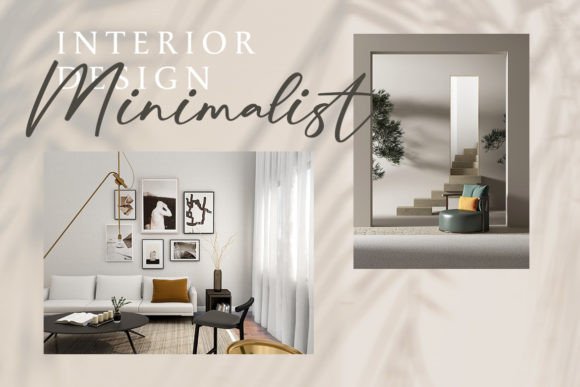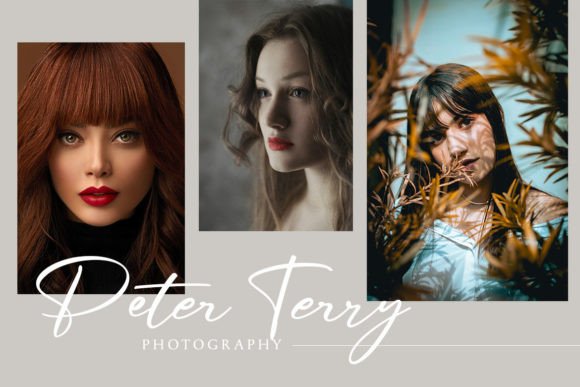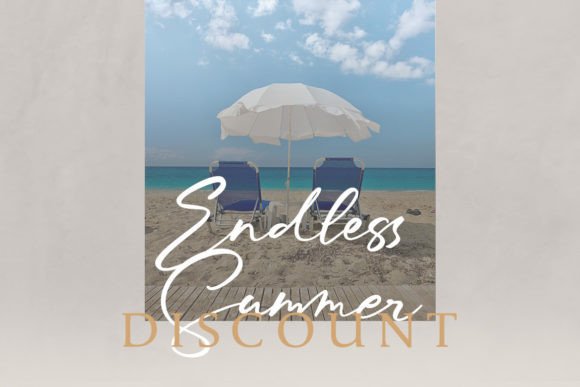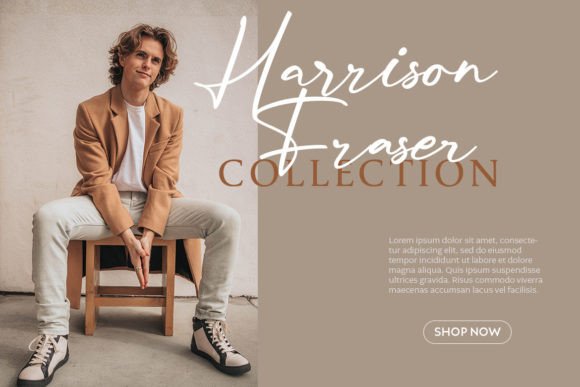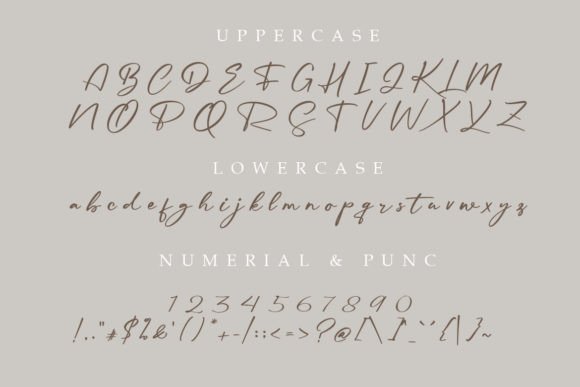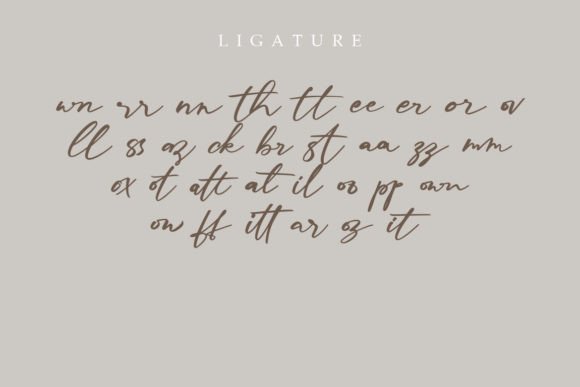
The Perfect Script Font: Elevate Your Designs with Carabella
You’ve spent hours pouring your heart and soul into a design project, and it’s finally ready for its big reveal. But something’s missing – a touch of elegance, a dash of sophistication. That’s where the right font can make all the difference. For designers, finding the perfect script font can be a game-changer, and that’s exactly what the Carabella Font delivers.
With its intricate details and polished feel, Carabella Font is the perfect addition to any designer’s library. Whether you’re working on a wedding invitation, a branding project, or a social media campaign, this font is sure to elevate your design to the next level. Its versatility and sophistication make it an invaluable asset for designers of all levels, and a must-have for anyone looking to take their designs to new heights.
Carabella Font Key Features
- Font Family: Carabella
- Unique Characteristics: Elegant script font with a vintage feel, ideal for invitations, wedding designs, and creative projects
Carabella Font Review
As a designer, I’ve had the chance to work with the Carabella Font, and I must say it’s a unique blend of elegance and playfulness. Here’s my honest review:
- ✨ Elegant script design: Carabella Font’s flowing lines and cursive feel make it perfect for adding a touch of sophistication to your designs.
- ✨ Wide range of languages: This font supports a wide range of languages, making it a great choice for global projects.
- ✨ High-quality graphics: The font’s high-quality graphics ensure that it looks great on various devices and screen resolutions.
- ⚠️ Limited font weight options: While the font has a unique design, it’s limited to a few font weights, which may not be suitable for all design projects.
- ⚠️ Not ideal for small text: Due to its script design, Carabella Font may not be the best choice for small text, as it can become difficult to read.
Overall, I think Carabella Font is a great addition to any designer’s toolkit. While it has some limitations, its unique design and high-quality graphics make it a great choice for projects that require a touch of elegance and sophistication. Just be mindful of its limitations when choosing the font weight and text size.
The Carabella Font is ideal for:
- Editorial and publishing projects
To get the most out of the Carabella Font, try:
- Combining it with bold and italic styles for emphasis
- Using it in conjunction with other elegant fonts for contrast
- Experimenting with different font sizes and colors
Alternatives to Carabella Font
Ostrich Sans is a modern sans-serif font that is highly legible and versatile. It is suitable for a wide range of applications, including body text, headings, and titles. Ostrich Sans is a great alternative to Carabella Font for designers who want a clean and sophisticated look. Like Carabella Font, Ostrich Sans is highly legible, but it has a more geometric feel and is more suitable for digital use.
Playfair Display is a luxurious and elegant script font that is perfect for adding a touch of sophistication to your designs. It is highly suitable for titles, headings, and other display typography. Playfair Display is a great alternative to Carabella Font for designers who want to add a sense of luxury and elegance to their designs. Like Carabella Font, Playfair Display is highly legible, but it has a more formal and traditional feel.
Montserrat is a geometric sans-serif font that is highly legible and versatile. It is suitable for a wide range of applications, including body text, headings, and titles. Montserrat is a great alternative to Carabella Font for designers who want a clean and modern look. Unlike Carabella Font, Montserrat has a more geometric feel and is more suitable for urban and industrial designs.
Didot is a luxurious and elegant serif font that is perfect for adding a touch of sophistication to your designs. It is highly suitable for titles, headings, and other display typography. Didot is a great alternative to Carabella Font for designers who want to add a sense of luxury and elegance to their designs. Like Carabella Font, Didot is highly legible, but it has a more formal and traditional feel.